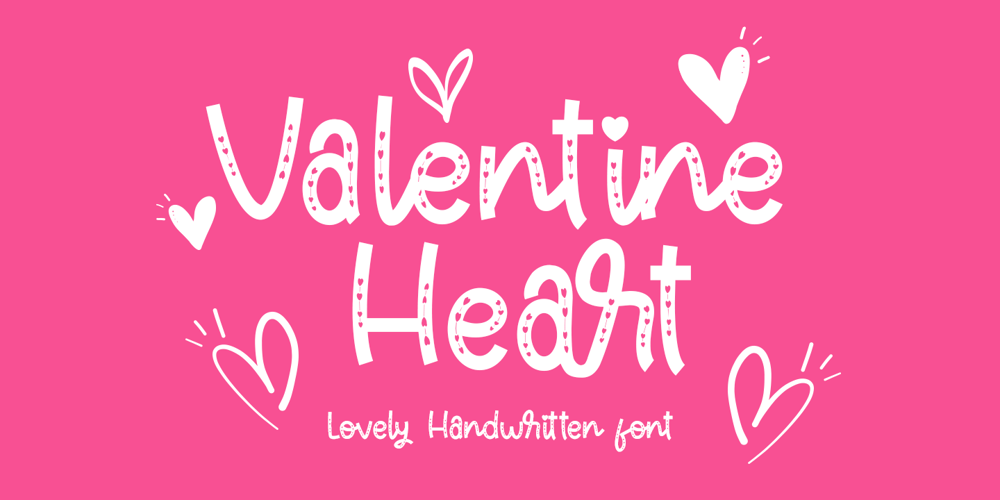
Valentine Heart
Valentine Heart font
Valentine Heart Font Family was designed by Sarwo Edhi Prayitno and published by Haksen. Valentine Heart contains 1 styles and family package options. “Valentine Heart” is a stylish modern handwritten font with casual quirky style. It is perfect for branding, birthday/valentine invitation, promotion, product packaging, and other needs.You will get full set of lowercase and uppercase letters, numerals and punctuation, multilingual symbols, ligatures and extra swashes that giving realistic hand-lettered style.In order to use the beautiful swashes, you need a program that supports OpenType features such as Adobe Illustrator, Adobe Photoshop, Adobe Indesign and Corel Draw.Or please check the end of the preview to know how to get the swashes.Thanks and have a wonderful day,Haksen